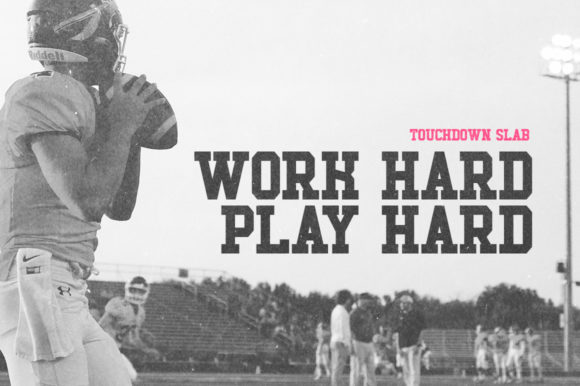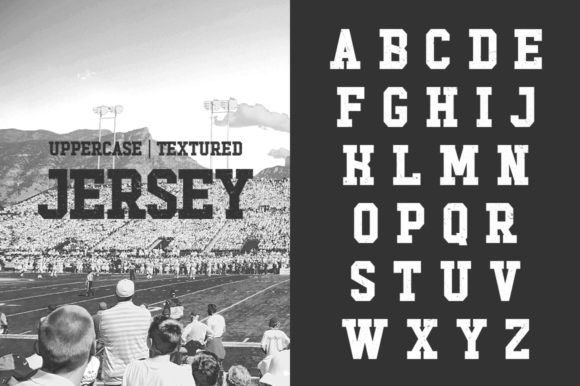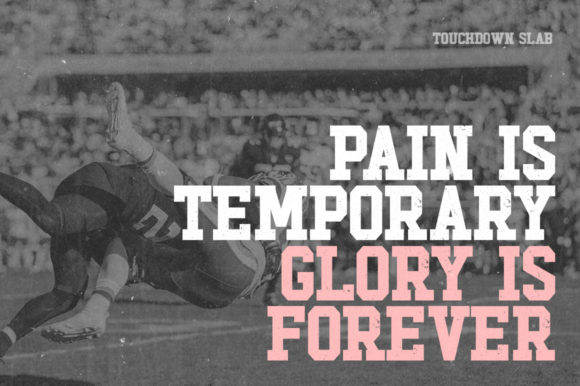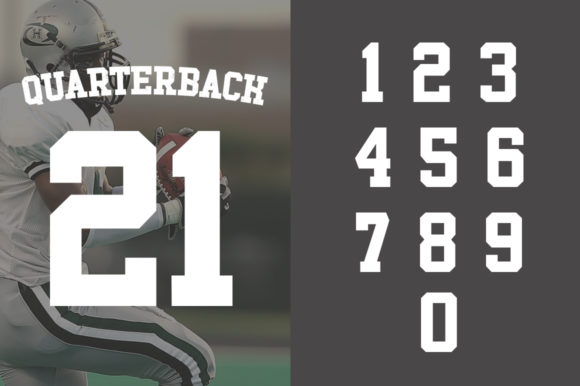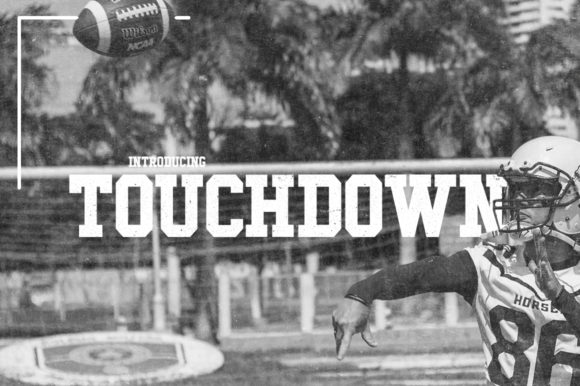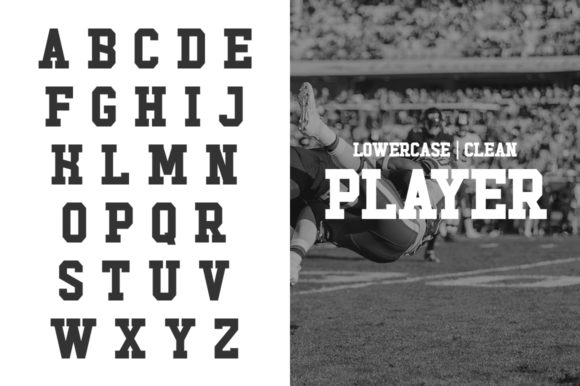
Touchdown
Touchdown: A Dynamic and Sporty Slab Serif Font with Vintage Flair
Touchdown is a distinctive slab serif font that combines dynamic energy with a vintage sports aesthetic. This typeface offers designers a powerful tool for creating impactful typography that brings a sporty and nostalgic feel to various design projects.
Key Features of Touchdown
• Dynamic Design: Features a lively and energetic appearance that captures attention
• Sporty Aesthetic: Incorporates elements reminiscent of classic sports typography
• Vintage Twist: Offers a nostalgic feel that evokes retro sports designs
• Slab Serif Structure: Maintains the characteristic thick, rectangular serifs typical of slab serif fonts
• Stand-Out Quality: Designed to make creative projects truly distinctive
Ideal Uses for Touchdown
Touchdown’s unique characteristics make it particularly well-suited for:
• Sports team branding and merchandise
• Retro-inspired athletic apparel designs
• Vintage sports event posters and advertisements
• Sports bar and restaurant signage
• Fitness center and gym marketing materials
When incorporating Touchdown into your designs, consider the following tips:
• Use for headlines or short blocks of text to maximize its dynamic impact
• Experiment with different sizes to highlight the font’s vintage sports details
• Utilize its sporty nature in projects where you want to convey energy and nostalgia
Touchdown is an excellent choice for designers looking to add a dynamic and sporty slab serif to their typographic toolkit. Its unique blend of energy and vintage charm makes it stand out in the world of typography. Whether you’re working on logo designs for sports teams, creating layouts for retro-inspired athletic events, or developing branding for fitness-related projects, Touchdown offers the perfect combination of sportiness and nostalgia.
Explore how Touchdown can bring a dynamic, vintage-sports edge to your design projects. From energetic headlines to nostalgic branding elements, this font provides the tools to create impactful and memorable typography that turns any design into a true standout with its unique sporty character.